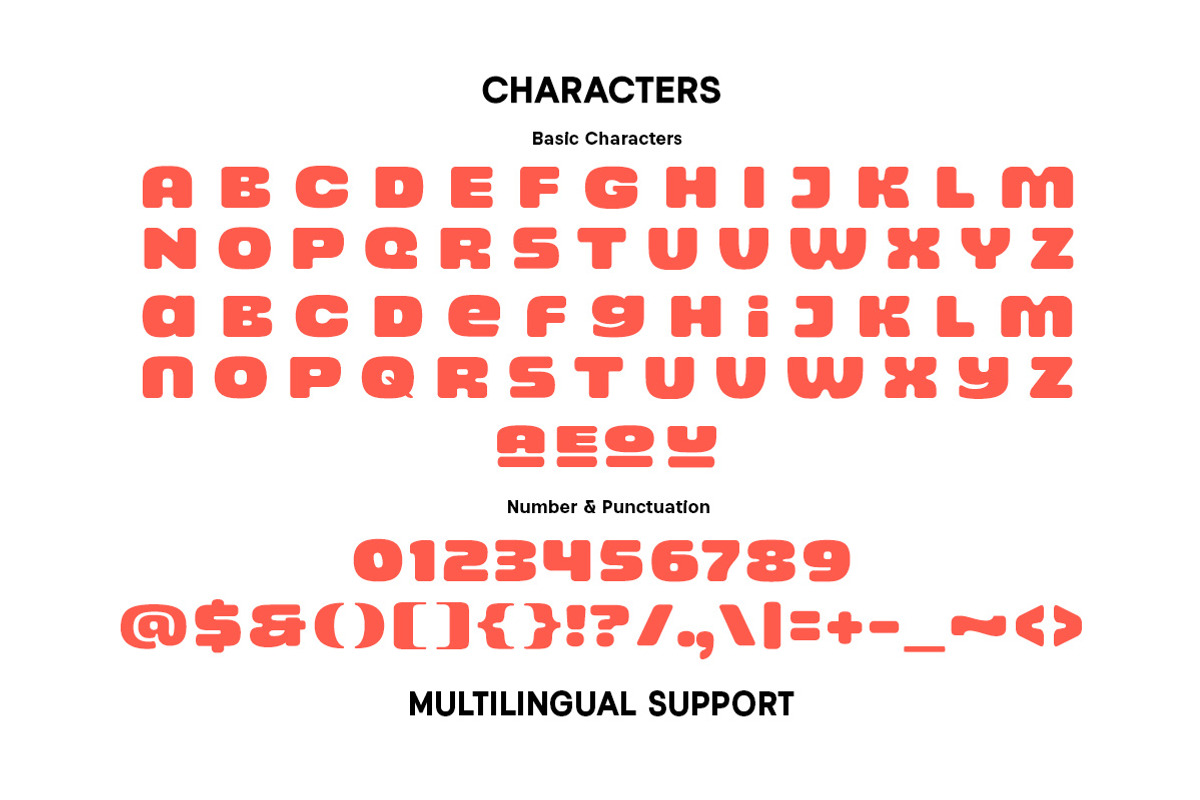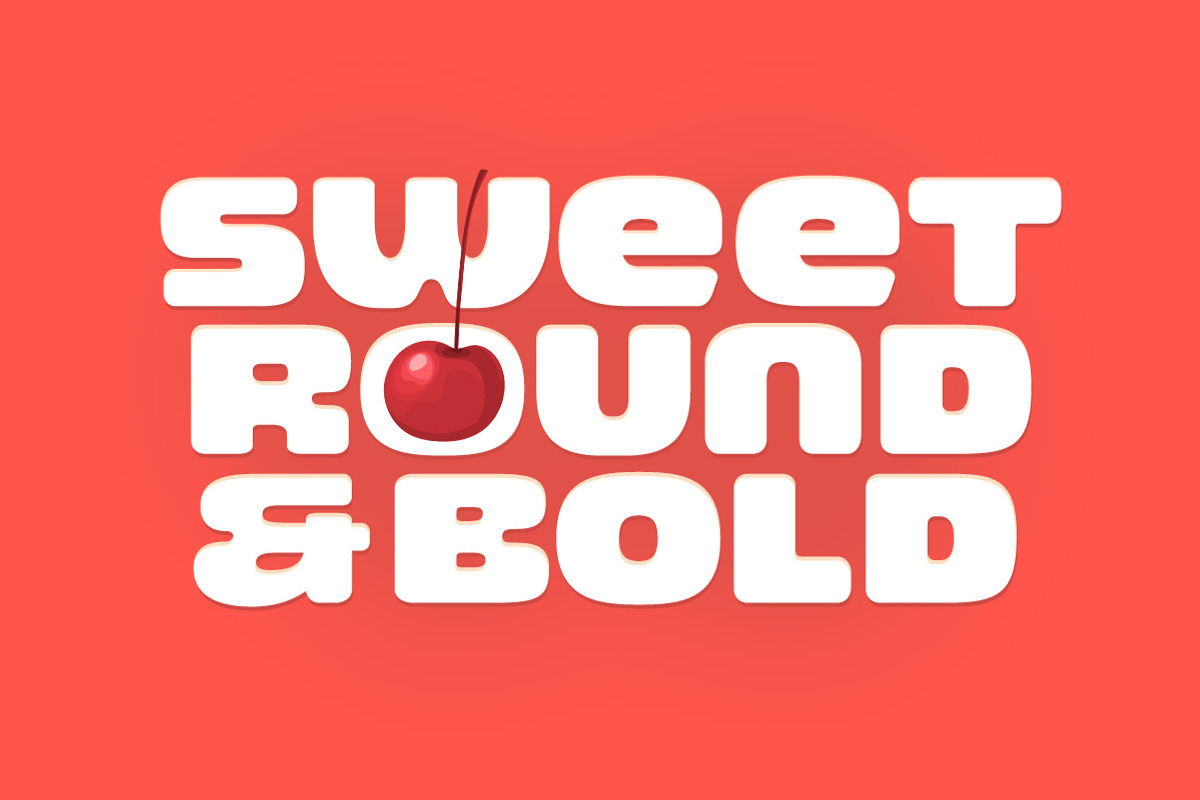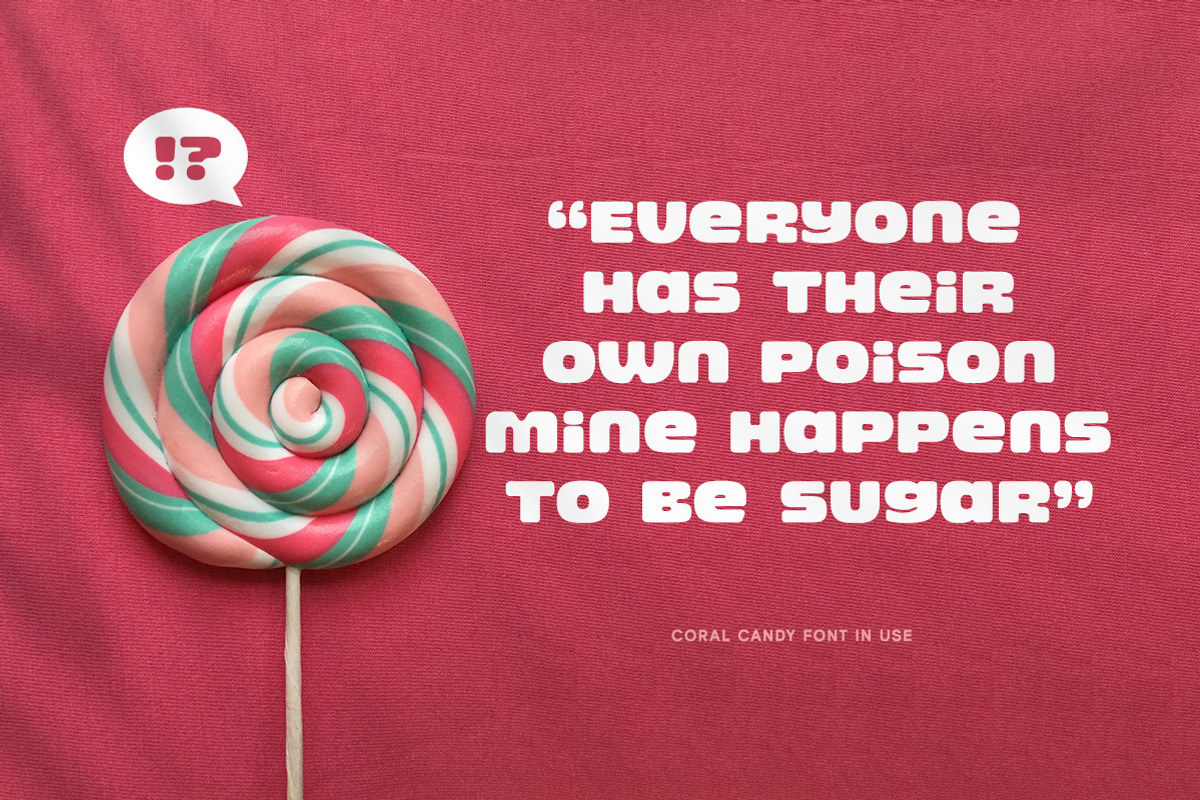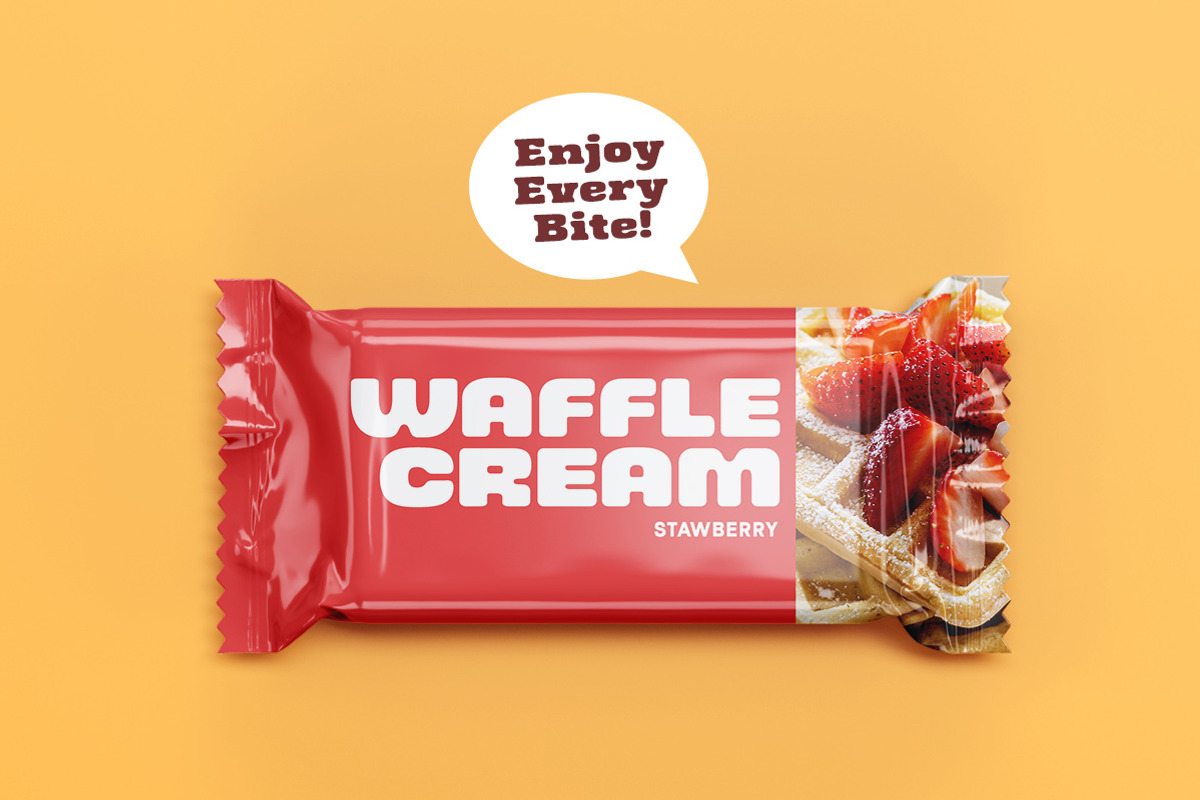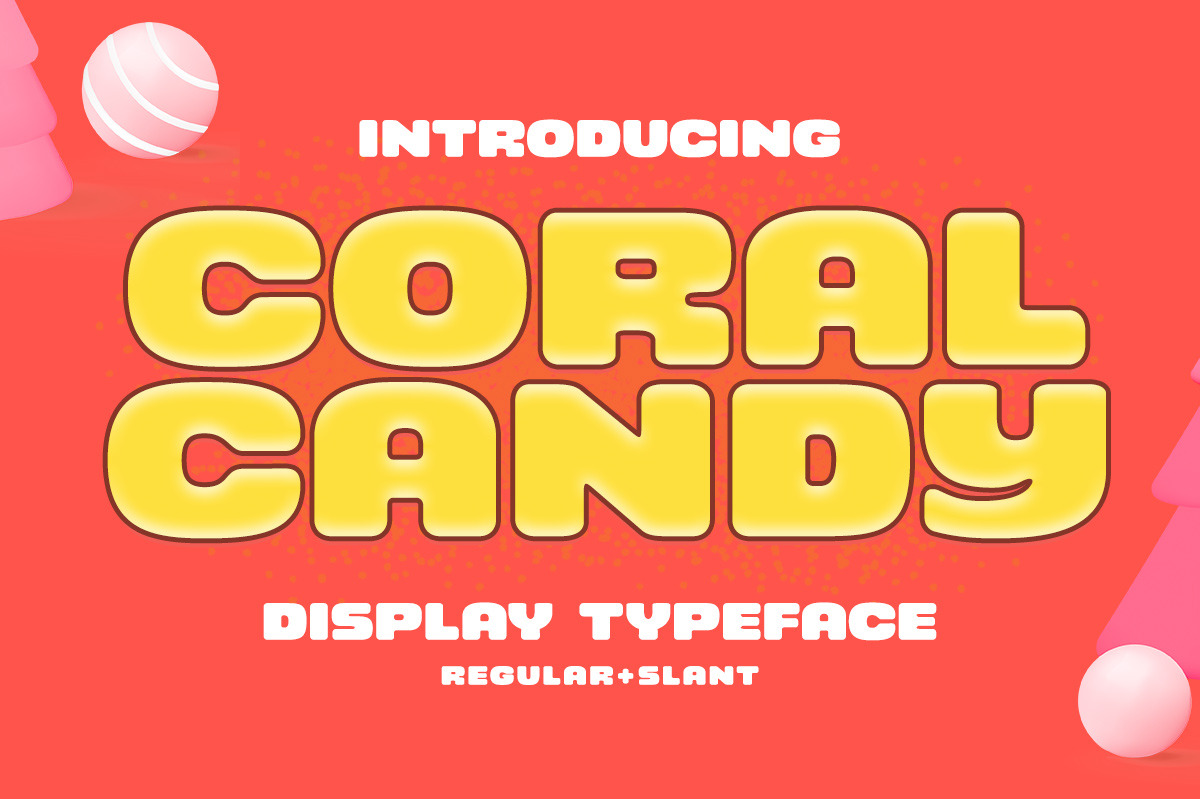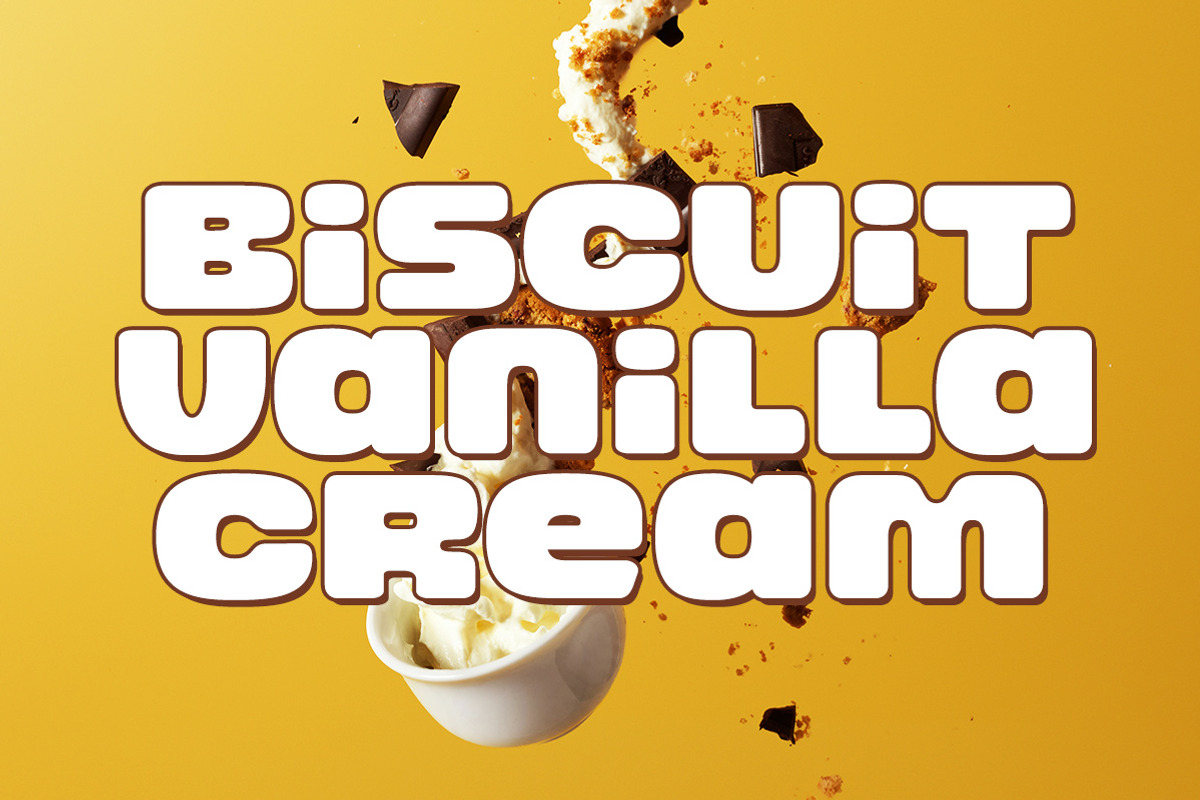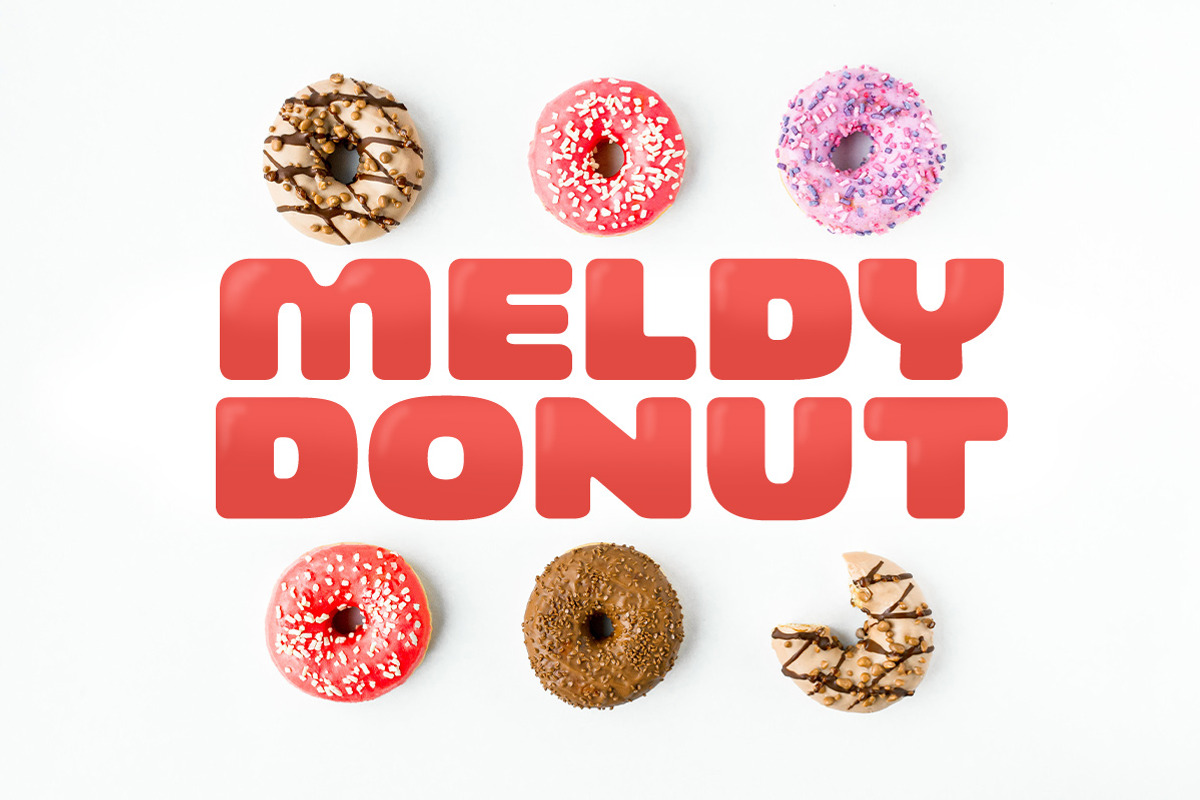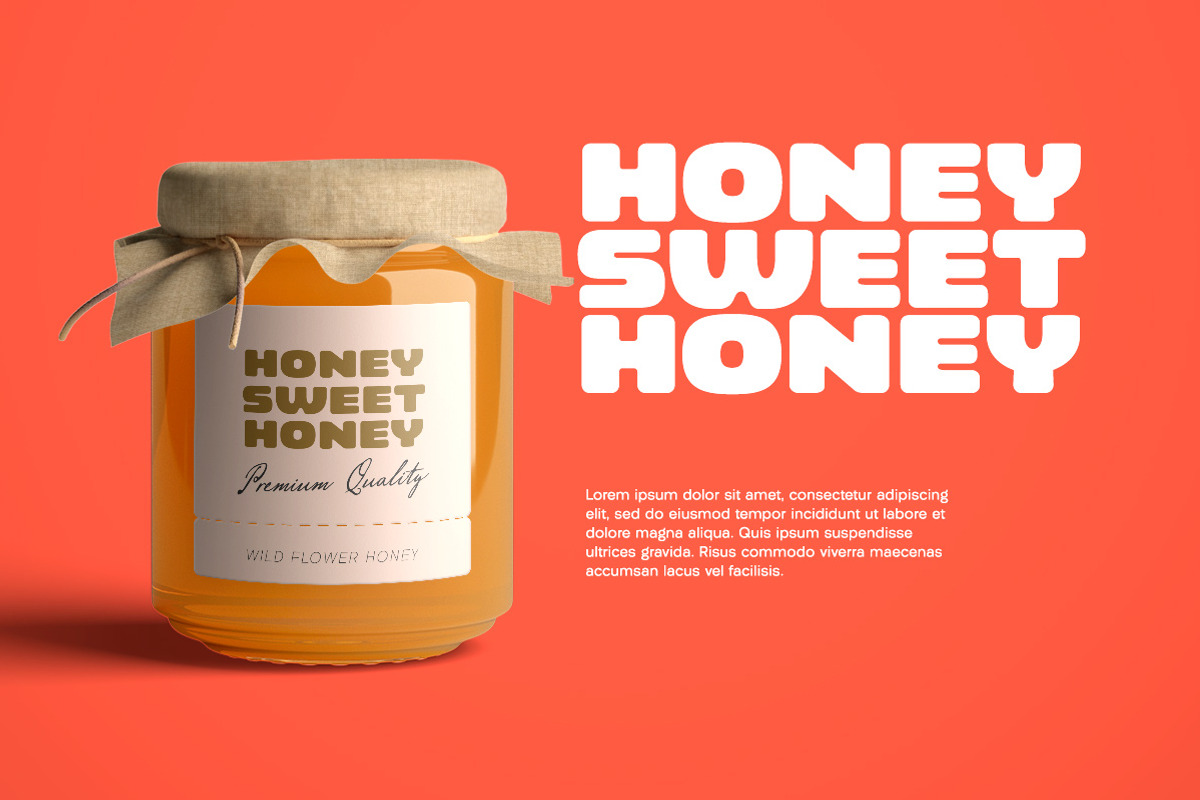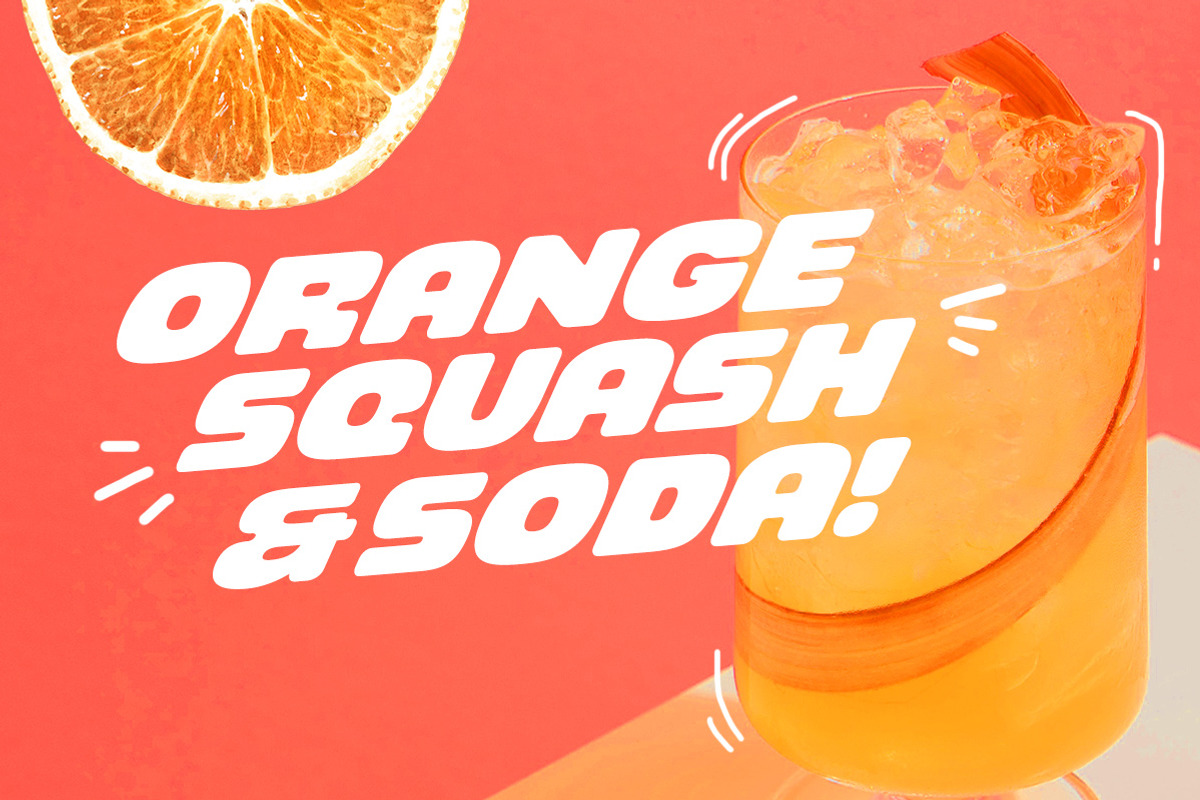
Coral Candy - Bold Display Font
Coral Candy is a bold font with fun and playful looks. This type of font perfectly made to be applied especially in cartoon or child theme which is need a standout font, and the other various formal forms such as invitations, labels, logos, magazines, books, greeting / wedding cards, packaging, fashion, make up, stationery, novels, labels or any type of advertising purpose.